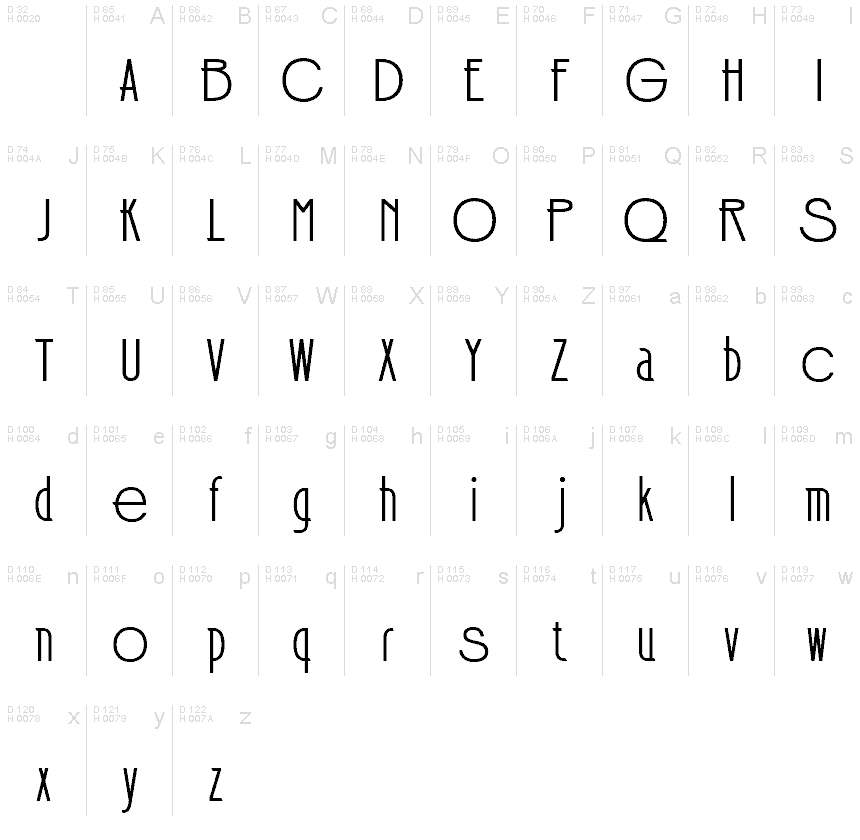
Jerio Demo Regular
Jerio font by Craft Supply Co is a retro light display font with modern, minimalistic inspiration. This sans-serif typeface features clean lines with a geometric influence making it suitable for contemporary applications in tech and branding. It’s clean, reliable, and provides precision in every line which makes it neat and attractive to any audience.
Jerio is free, lovely and professional when used in logos, branding material designs, posters, flyers, headings for websites or magazines, typography on social media posts as well as other similar personal projects.